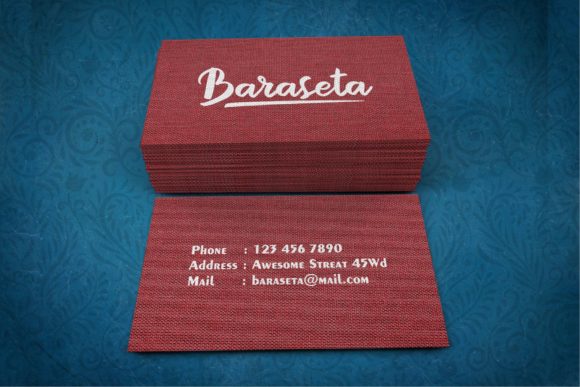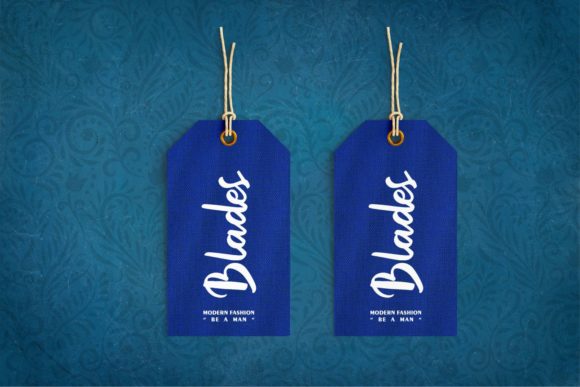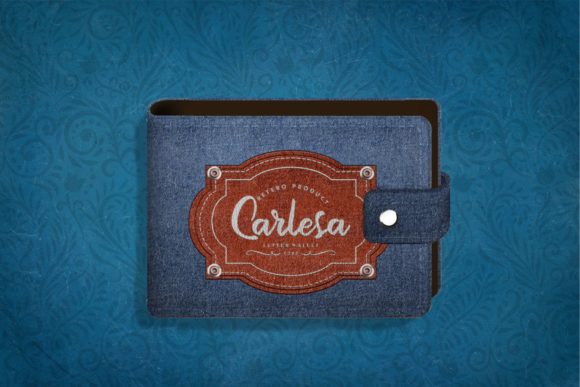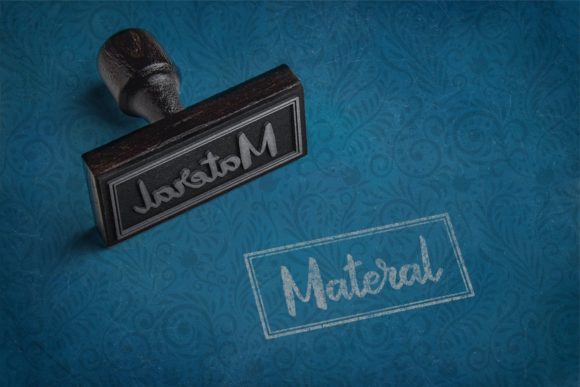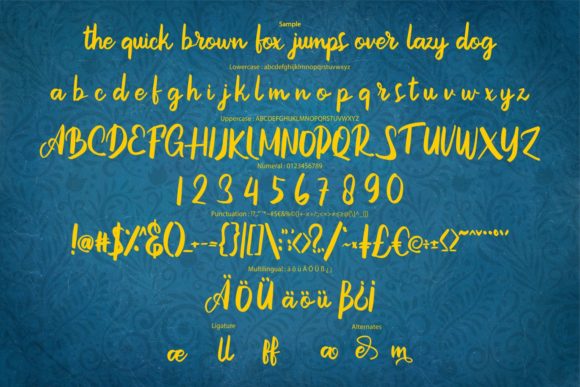
Introducing Deffia Font: The Ultimate Choice for Fashion Branding and Editorial Designs
In the world of typography, fonts play a crucial role in defining the visual identity of a brand or design. For designers and crafters, finding the perfect font that combines elegance, sophistication, and uniqueness can be a daunting task. However, if you’re looking for a font that checks all these boxes, look no further than Deffia Font. In this article, we’ll dive into the world of Deffia Font, exploring its features, benefits, and uses, and why it’s a must-have for your design projects.
What is Deffia Font?
Deffia is a gorgeous and thick lettered handwritten font that has taken the design world by storm. Defined by smooth curves and elegant lines, Deffia Font is perfect for fashion branding or editorial designs. Its unique and sophisticated style makes it an excellent choice for designers looking to add a touch of luxury to their projects.
Key Features of Deffia Font
So, what makes Deffia Font stand out from the rest? Here are some of its key features:
- Smooth Curves: Deffia Font is characterized by smooth curves that give it a fluid and elegant look.
- Thick Lettering: The font features thick lettering that adds a touch of sophistication and luxury to any design.
- Handwritten Style: Deffia Font has a handwritten style that gives it a personal and unique touch.
- Fashionable: The font is perfect for fashion branding, making it a must-have for designers in the fashion industry.
Benefits of Using Deffia Font
So, why should you choose Deffia Font for your design projects? Here are some benefits of using this gorgeous font:
- Instant Recognition: Deffia Font is unique and eye-catching, making it perfect for branding and editorial designs that require instant recognition.
- Versatility: The font can be used in a variety of design projects, from fashion branding to editorial designs, and even personal projects.
- Elegance: Deffia Font adds a touch of elegance and sophistication to any design, making it perfect for high-end brands and luxury products.
- Easy to Read: Despite its thick lettering, Deffia Font is easy to read, making it perfect for body text and headlines.
How to Use Deffia Font in Your Design Projects
Using Deffia Font in your design projects is easy. Here are some tips to get you started:
- Fashion Branding: Use Deffia Font for logos, business cards, and packaging designs to add a touch of luxury and sophistication.
- Editorial Designs: Use Deffia Font for magazine covers, article headlines, and body text to add a touch of elegance and refinement.
- Personal Projects: Use Deffia Font for personal projects, such as wedding invitations, greeting cards, and social media graphics.
In conclusion, Deffia Font is a gorgeous and thick lettered handwritten font that is perfect for fashion branding or editorial designs. With its smooth curves, elegant lines, and sophisticated style, Deffia Font is a must-have for designers and crafters looking to add a touch of luxury to their projects. Whether you’re working on a fashion branding project or an editorial design, Deffia Font is sure to impress. So, add it confidently to your projects, and you won’t be disappointed.